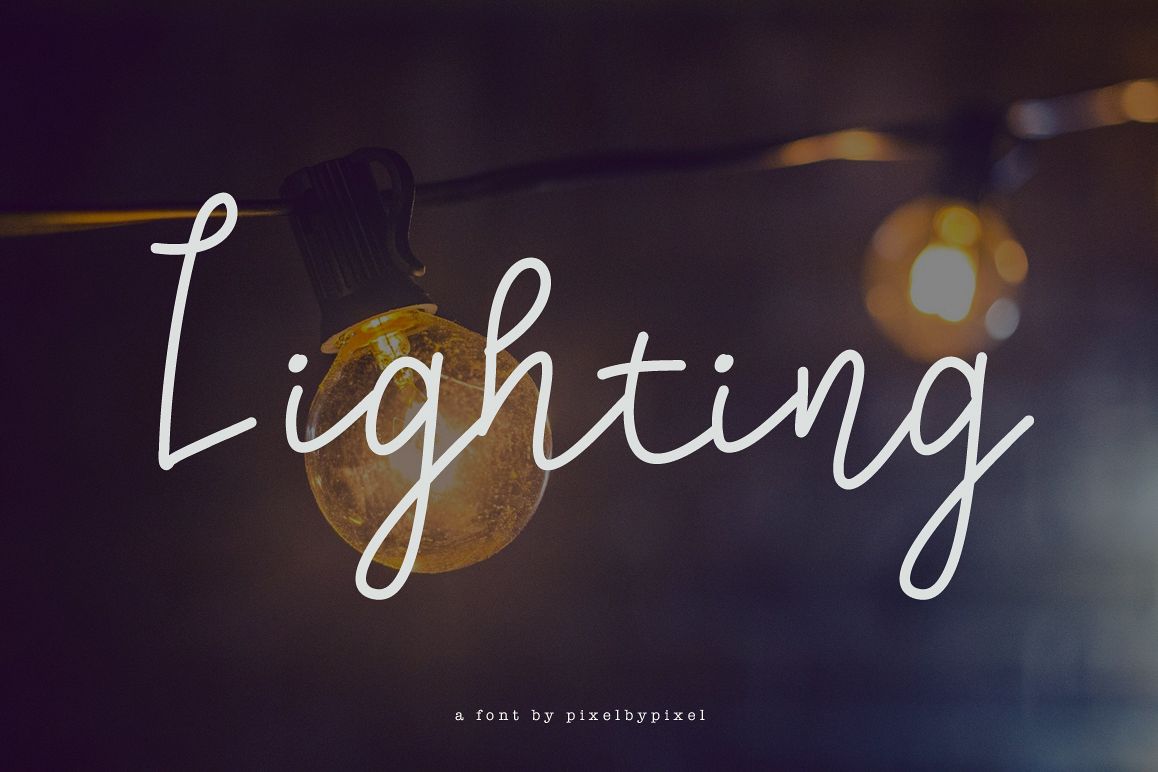
Lighting Script Font
Lighting-Medium
Lighting is smooth monoline font font with a dancing baseline.
• Uppercase and lowercase, numbers and puntuaction.